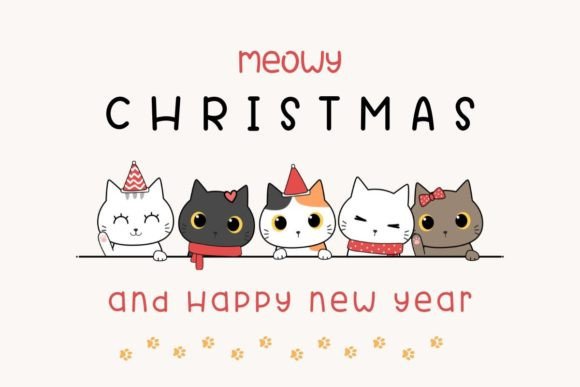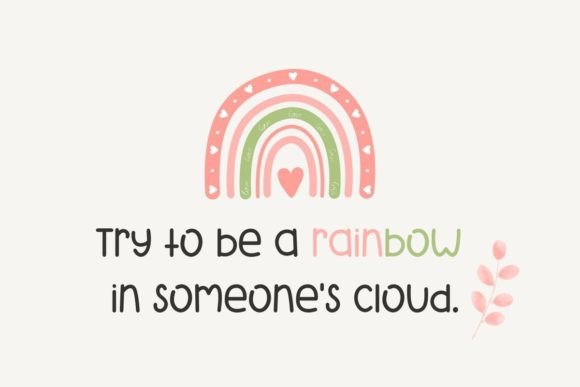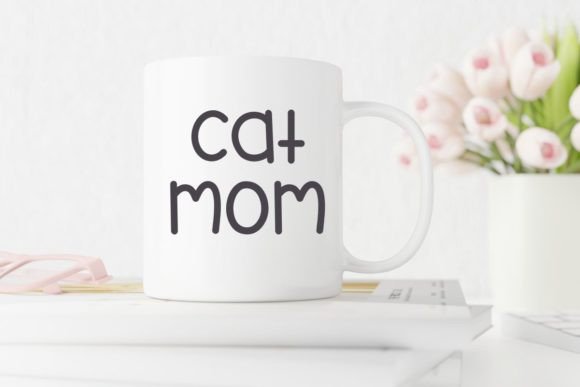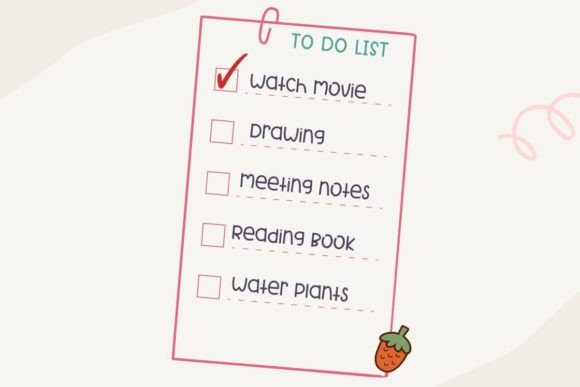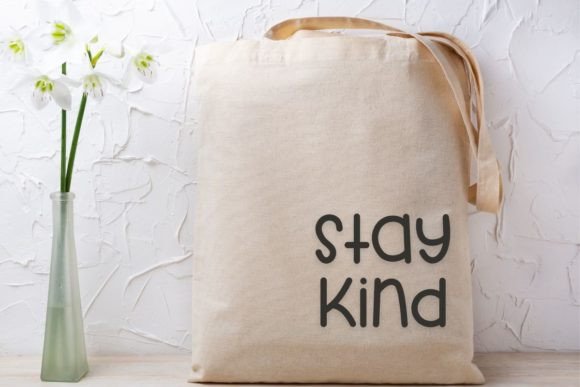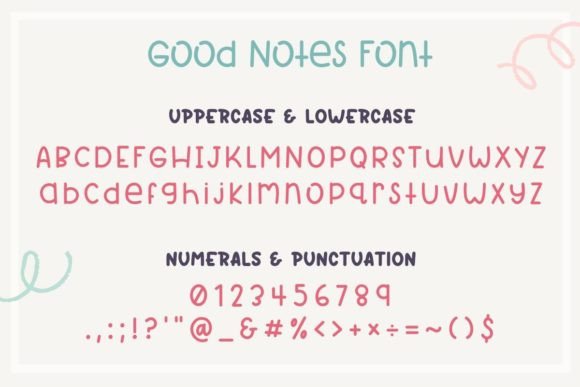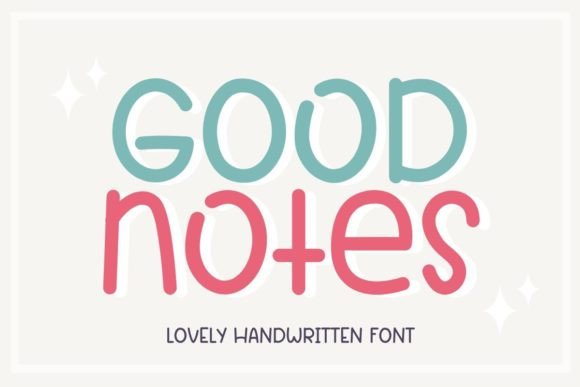
Discover the Charm of Good Notes Font: Elevate Your Handwritten Projects
Are you on the hunt for a font that adds a personal touch to your projects? Look no further than the Good Notes Font. This lovely handwritten font is perfect for designers and crafters seeking to infuse their work with a warm, organic feel. In this article, we’ll explore the features and benefits of Good Notes Font, and how it can be used to create beautiful, one-of-a-kind projects.
What is Good Notes Font?
Good Notes Font is a delightful handwritten font designed to mimic the look and feel of traditional handwriting. Its flowing script and subtle imperfections make it an ideal choice for a variety of creative projects. Whether you’re working on a Back to School-themed design, a personal journal, or a handmade greeting card, Good Notes Font is sure to add a touch of personality and whimsy.
Key Features of Good Notes Font
• Handwritten style: Good Notes Font boasts a genuine handwritten look that’s perfect for adding a personal touch to your projects.
• Back to School theme: This font is specifically designed to match all your Back to School-themed projects, making it an excellent choice for designers and crafters.
• Versatile: Good Notes Font can be used for a wide range of applications, including note-taking, diary writing, and creating greeting cards.
• Easy to read: Despite its handwritten nature, Good Notes Font is surprisingly easy to read, making it perfect for both digital and print projects.
Using Good Notes Font in Your Projects
Good Notes Font is incredibly versatile, and can be used in a variety of creative projects. Here are a few ideas to get you started:
Back to School Projects
Good Notes Font is a natural fit for Back to School-themed designs. Use it to create eye-catching posters, flyers, and worksheets that are sure to delight students and teachers alike. You can also use the font to design custom school supplies, such as pencil cases and notebooks.
Journaling and Diary Writing
If you’re a journaler or diary writer, Good Notes Font is an excellent choice for adding a personal touch to your entries. The font’s flowing script and handwritten style make it perfect for writing down your thoughts, feelings, and reflections.
Greeting Cards and Stationery
Good Notes Font is also well-suited for creating handmade greeting cards and stationery. Use it to design beautiful, one-of-a-kind cards for special occasions, such as birthdays, holidays, and graduations.
Tips for Working with Good Notes Font
Here are a few tips for getting the most out of Good Notes Font:
• Experiment with sizes and colors: Good Notes Font looks great in a variety of sizes and colors. Experiment with different combinations to find the one that works best for your project.
• Pair with other fonts: Good Notes Font pairs well with other fonts, such as sans-serif and serif fonts. Try combining it with other fonts to create a unique and visually appealing design.
• Use it for headings and titles: Good Notes Font is perfect for headings and titles, where its handwritten style can really shine.
Font Name Good Notes Font
Author AnningArts
Good Notes Font is a charming handwritten font that’s perfect for designers and crafters seeking to add a personal touch to their projects. Its versatility, readability, and beautiful script make it an excellent choice for a wide range of applications, from Back to School-themed designs to journaling and greeting card creation. With its ease of use and flexibility, Good Notes Font is sure to become a favorite in your font collection.